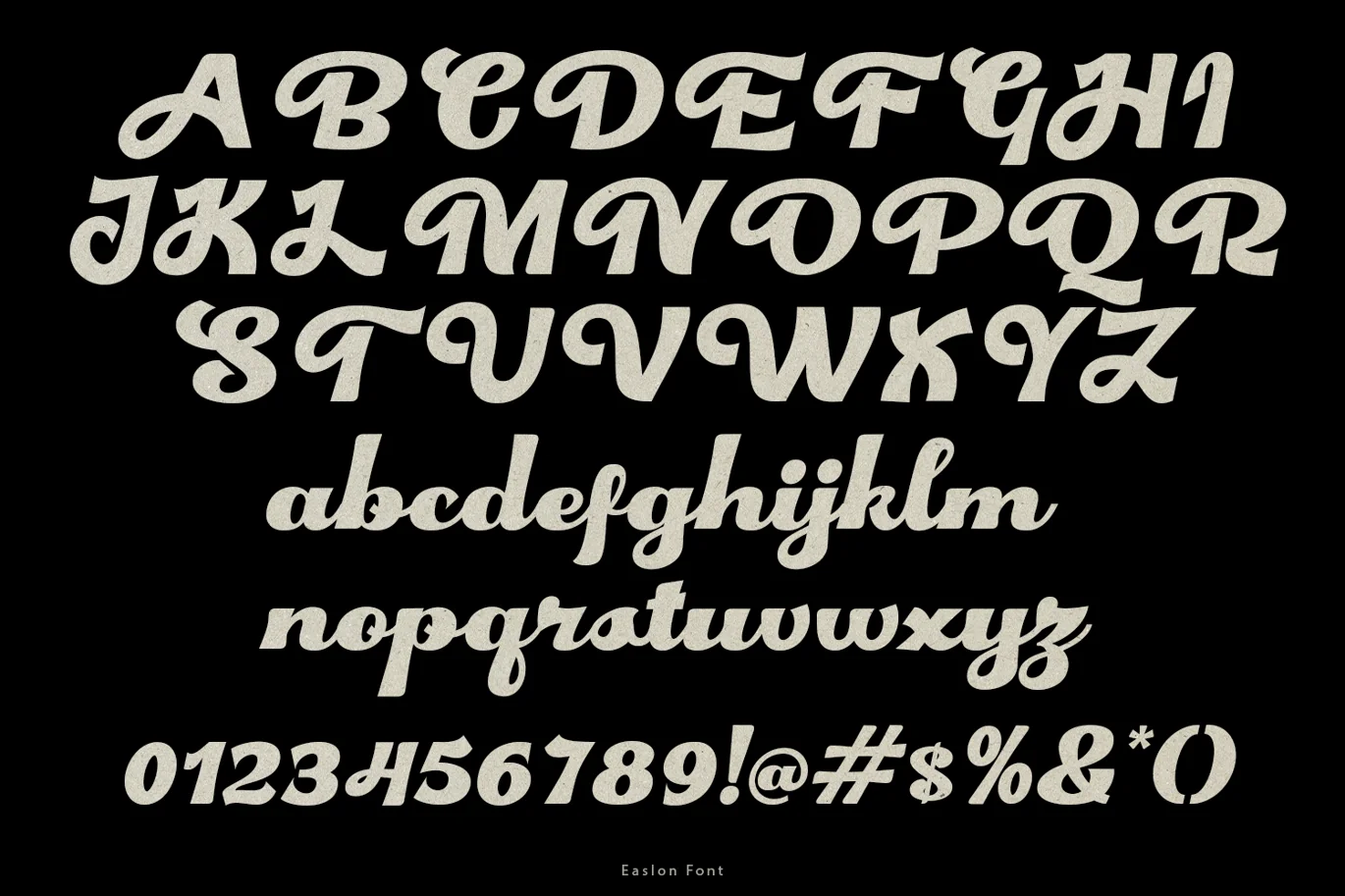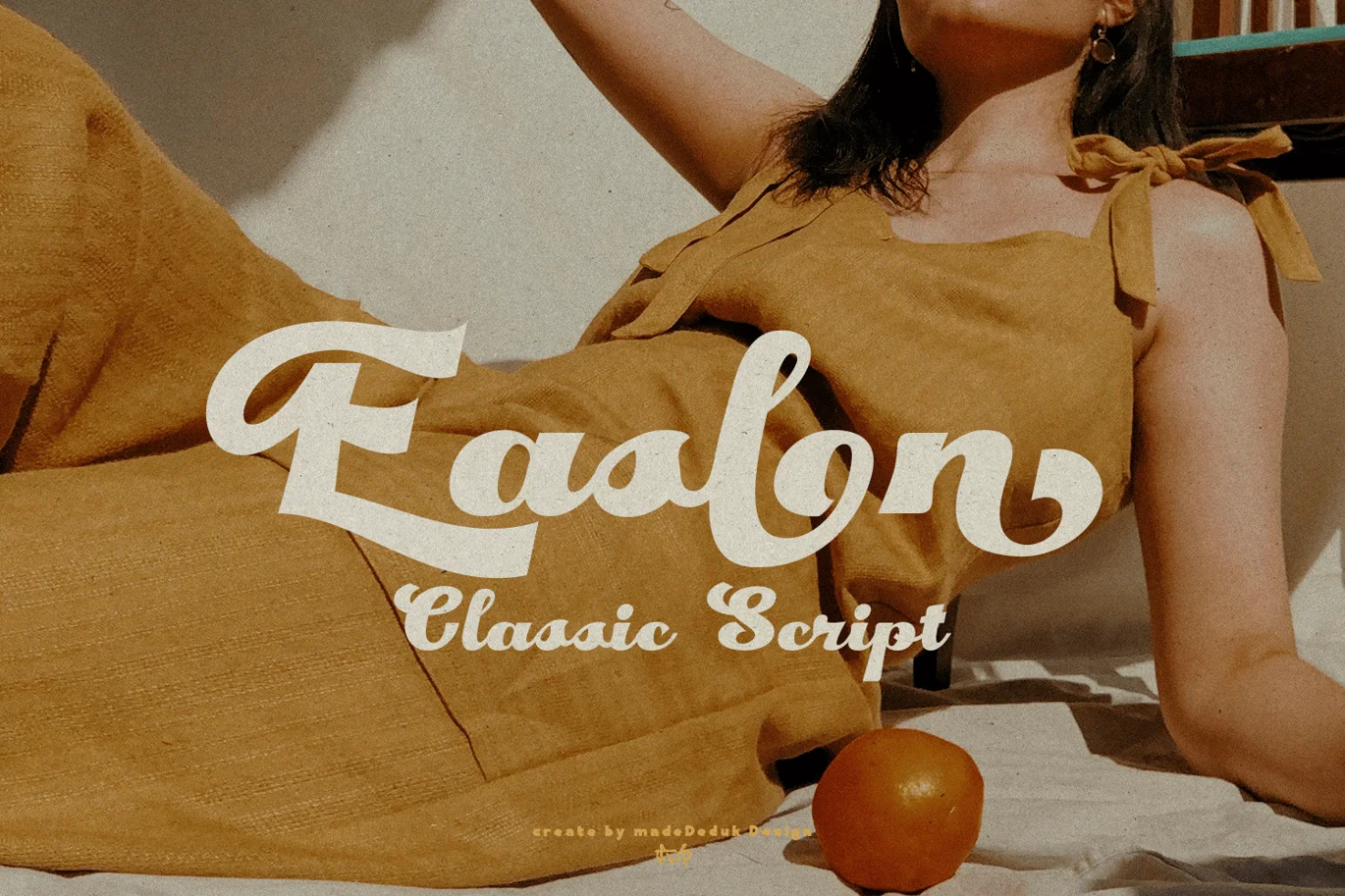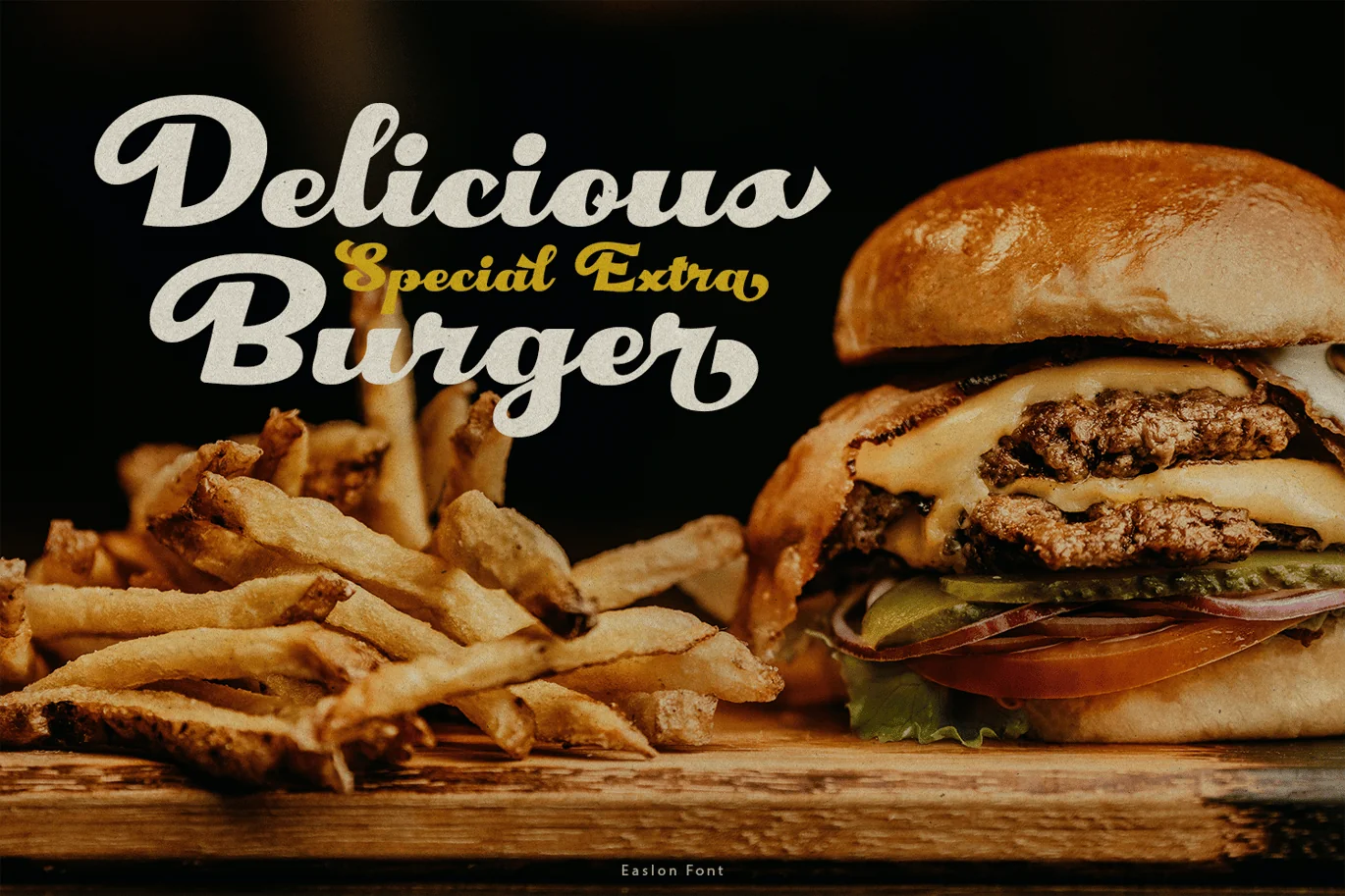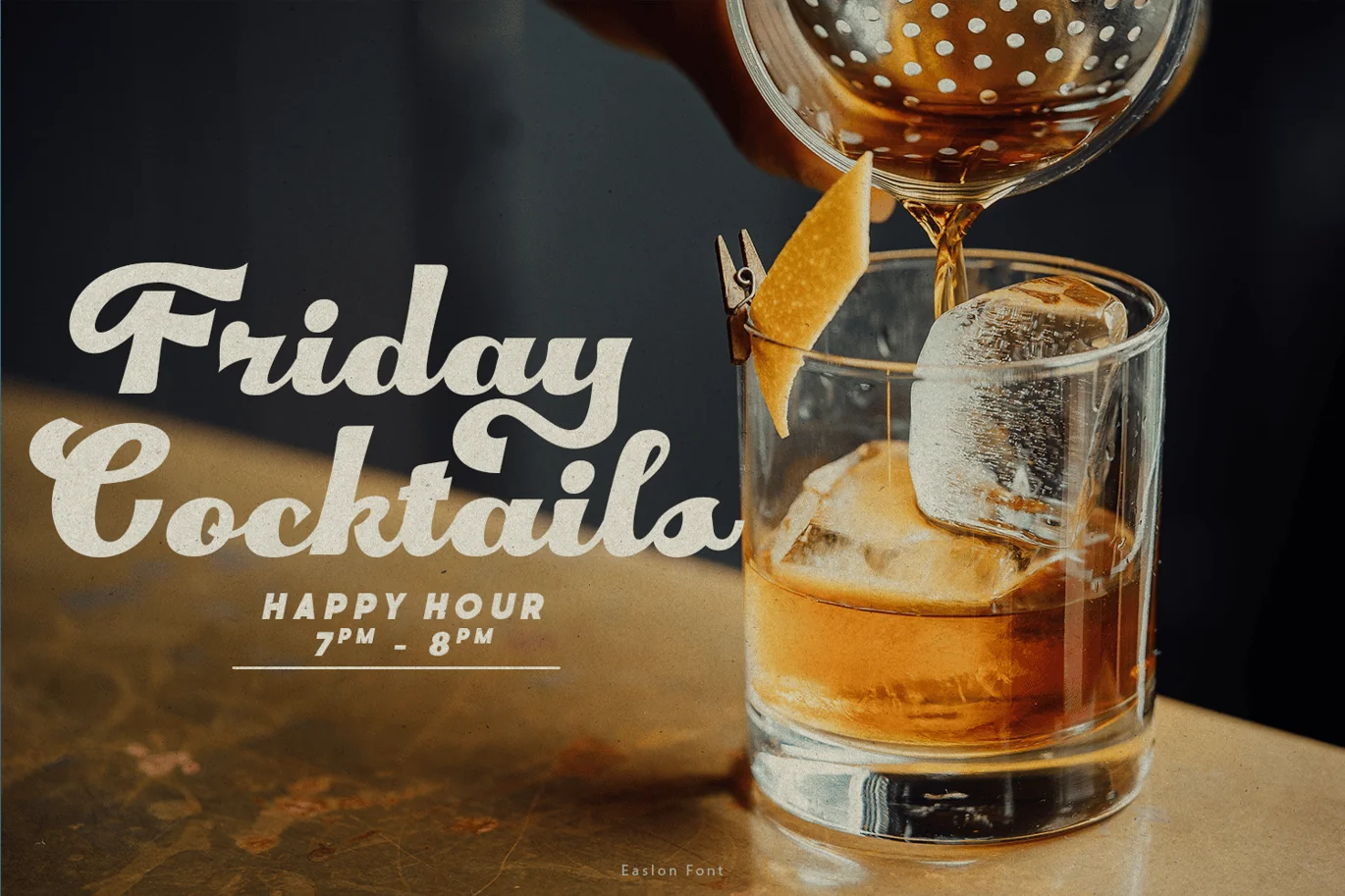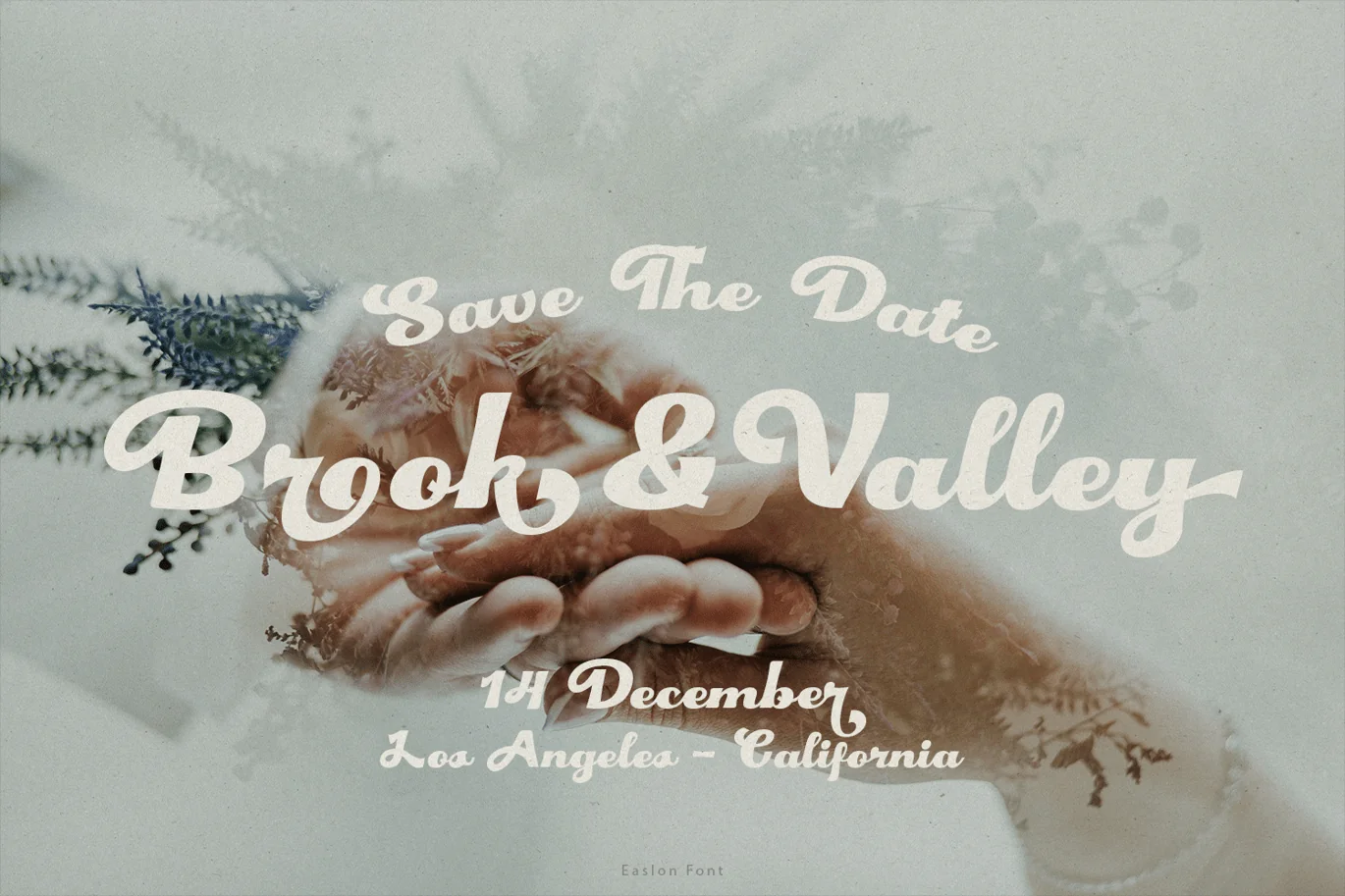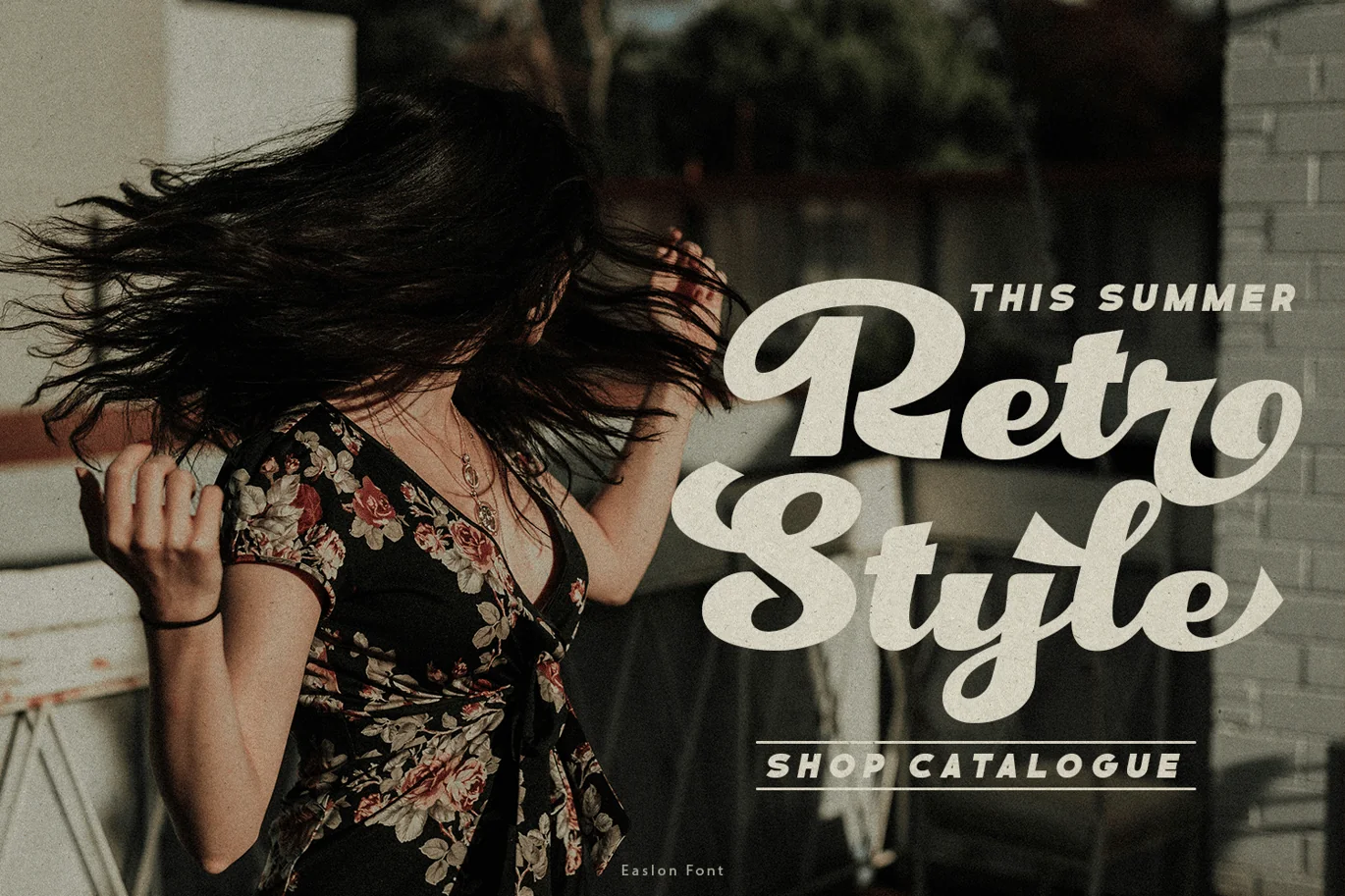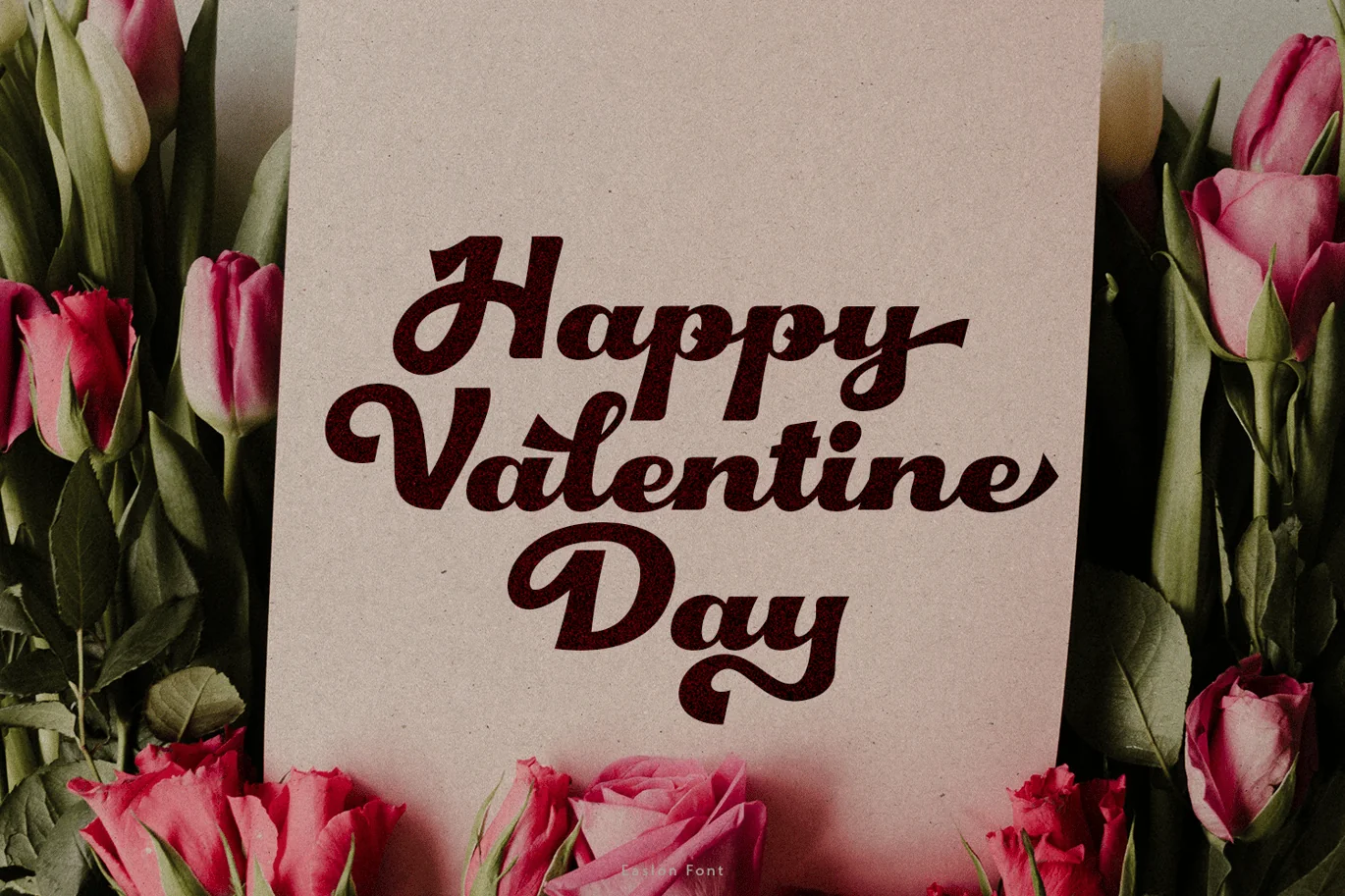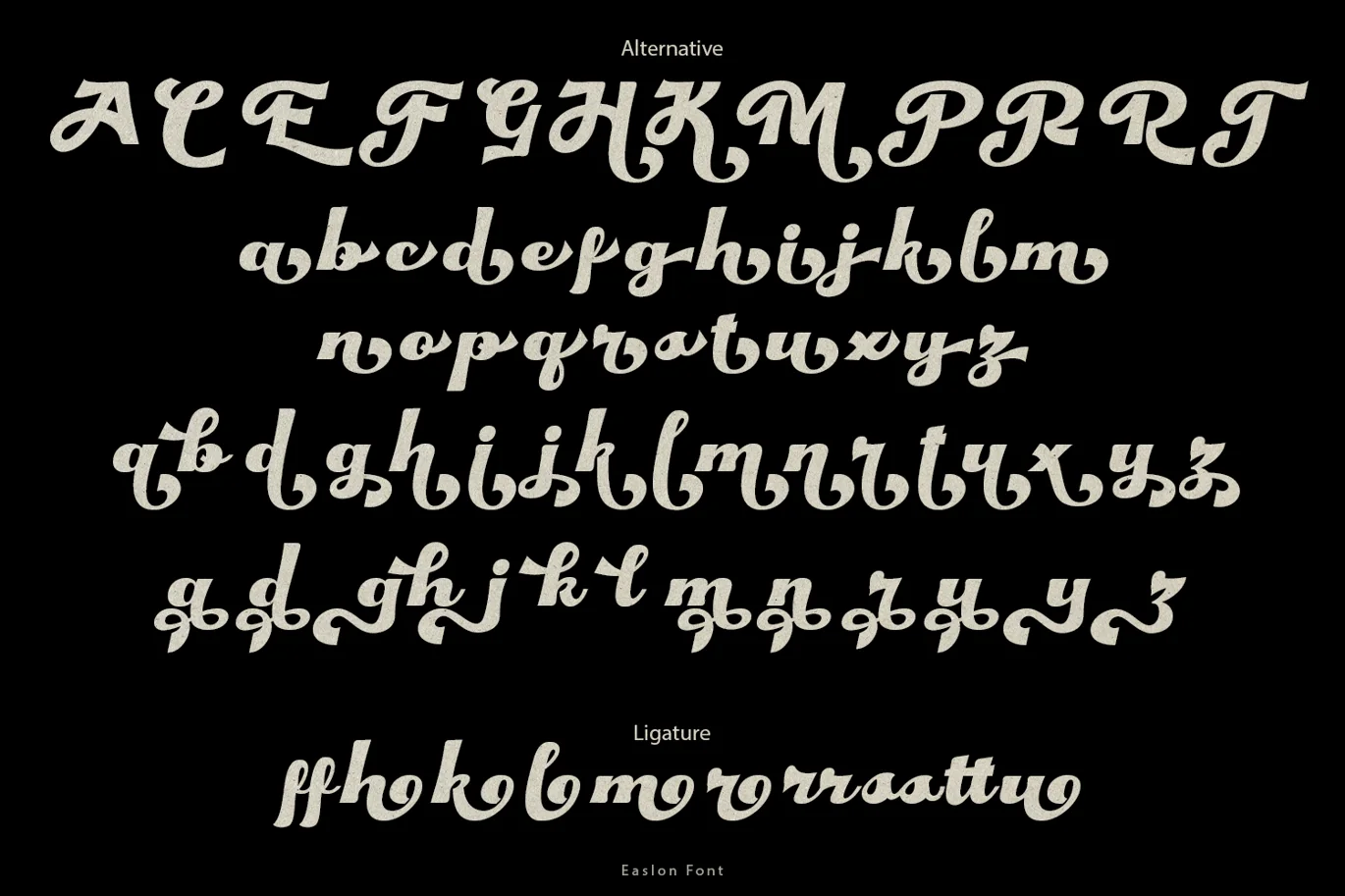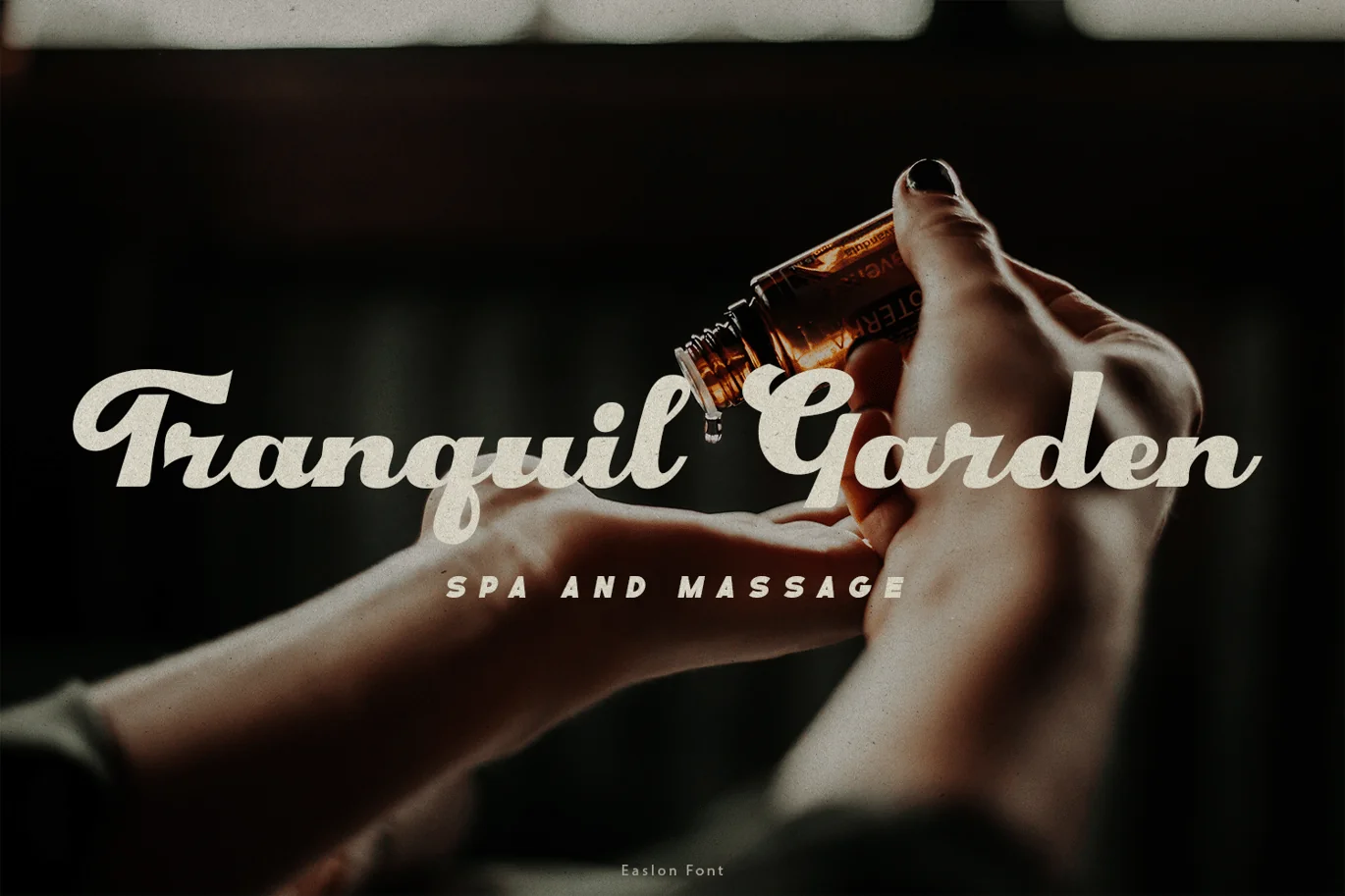
Easlon Retro Font
Easlon is a retro font come with 70’s retro style. You can explore and combine creating rhythm for comfortable reading. Retro and refined use this font for any branding, product packaging, invitation, quotes, headline, label, poster, logo etc.
Feature
- Number & Symbol
- International Glyphs
- Alternative